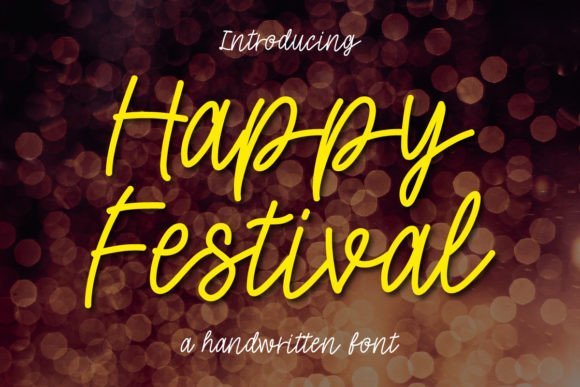
Introduction to Happy Festival Font
Happy Festival is a sweet and delicate handwritten script font.
A friendly hand-lettered typeface with charm and style This font is perfect for quotes, headings, logos, branding, merchandise, and websites.
Key Features of Happy Festival Font